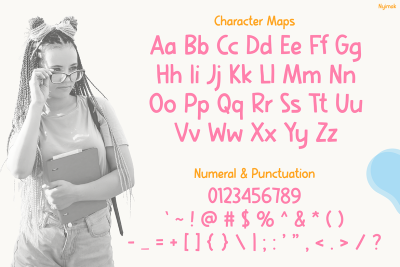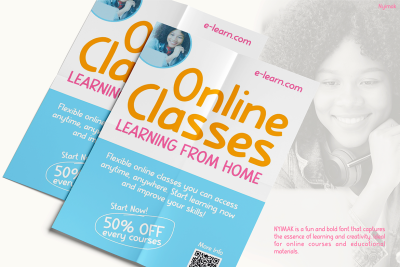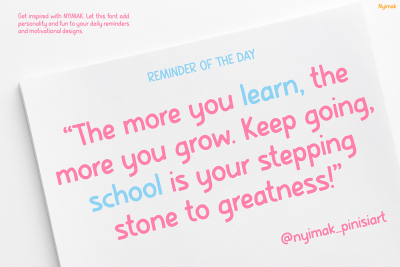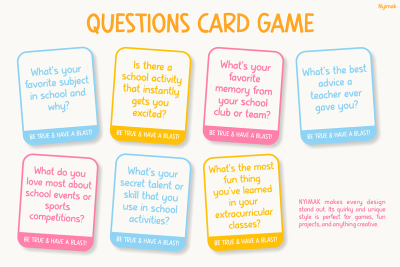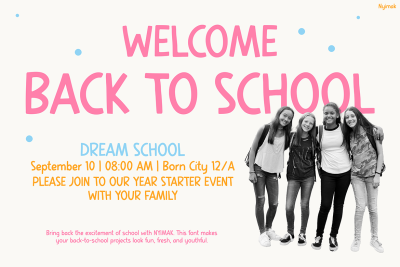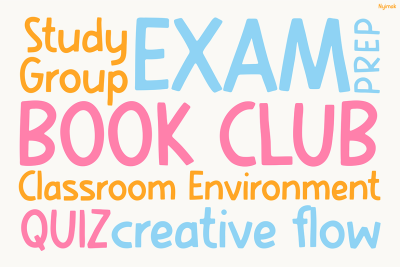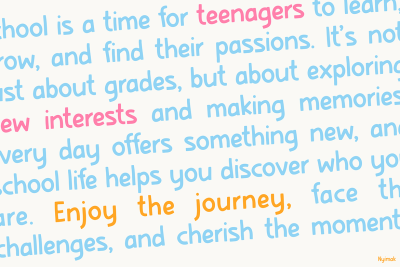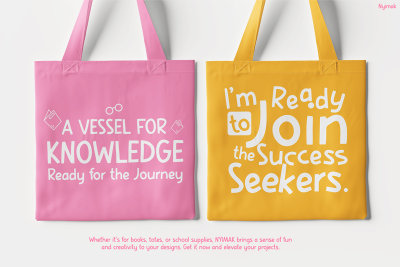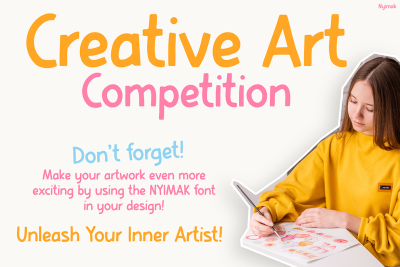
Kids Font Nyimak: A Fun and Playful Typeface for Creative Designs
When it comes to designing something lively and engaging, Kids Font Nyimak is the perfect choice. This unique and charming font features a playful and energetic aesthetic that instantly grabs attention. The smooth, rounded edges combined with whimsical letterforms give it a friendly and approachable vibe, making it ideal for children’s content. Whether you’re working on a poster, book cover, or an educational worksheet, this font adds an element of joy and creativity to any project.
What makes Kids Font Nyimak stand out is its carefully crafted balance between fun and readability. Each letter showcases precise design to ensure clarity while maintaining a delightful and animated appearance. The soft curves and playful strokes create a sense of movement, making it feel dynamic and full of personality. The font captures the essence of childhood wonder, making it a fantastic choice for projects that aim to be both educational and entertaining.
Perfect for Various Uses
Kids Font Nyimak is a versatile typeface that suits a wide range of applications. Whether you’re a designer, educator, or content creator, this font can enhance your work in multiple ways. Some ideal uses include:
- Childrenโs Books & Storytelling โ The fun and inviting design makes it perfect for book titles, chapter headings, and illustrated storybooks.
- Educational Materials โ Teachers and educators can use this font to create engaging worksheets, flashcards, and classroom posters.
- Branding & Packaging โ Toy brands, candy packaging, and kid-focused businesses can benefit from the playful look of this font.
- Social Media & Marketing โ Eye-catching captions, banners, and graphics for kid-friendly campaigns will stand out with this unique typeface.
- Event Invitations โ Perfect for birthday parties, school events, and other kid-centric celebrations.
Get Creative with Kids Font Nyimak